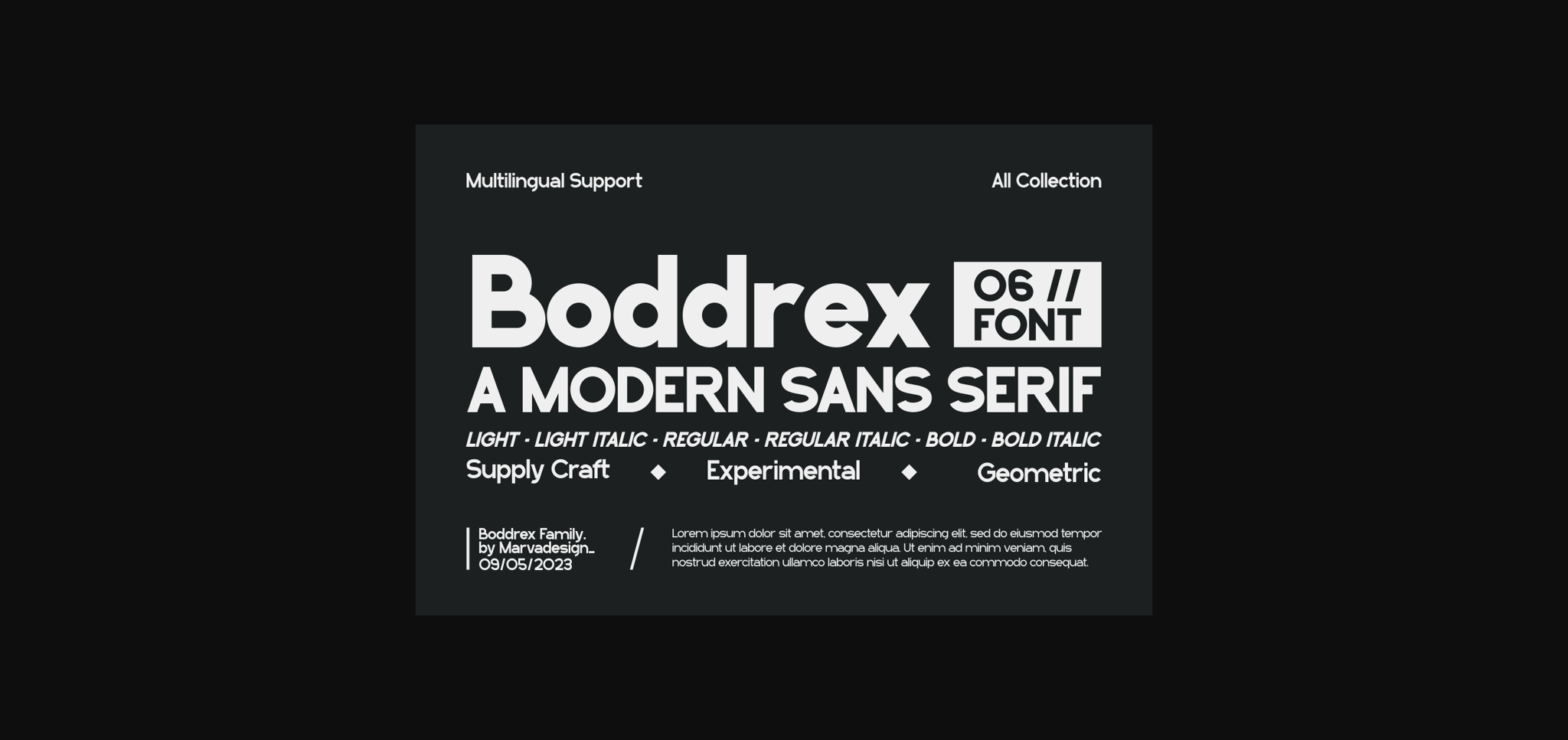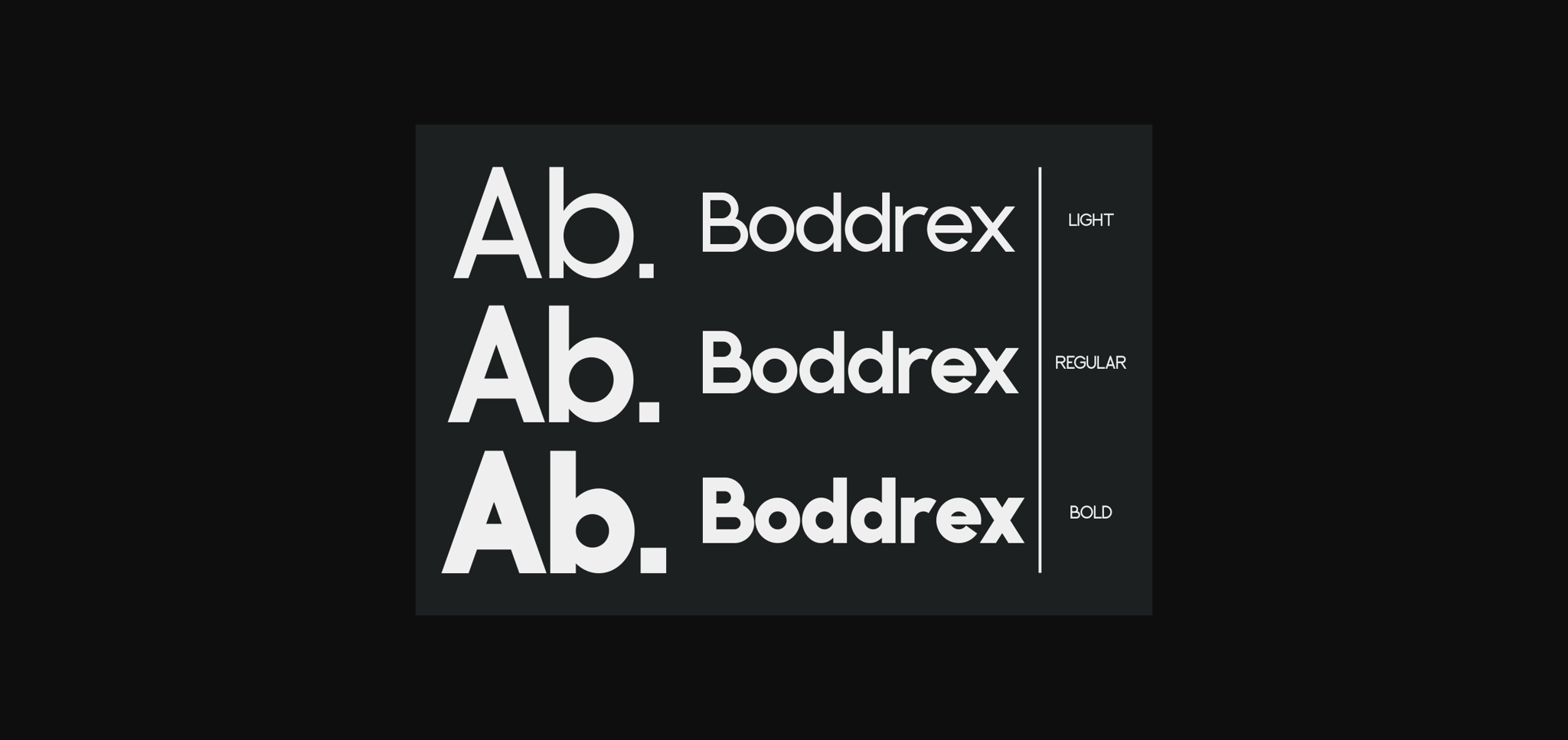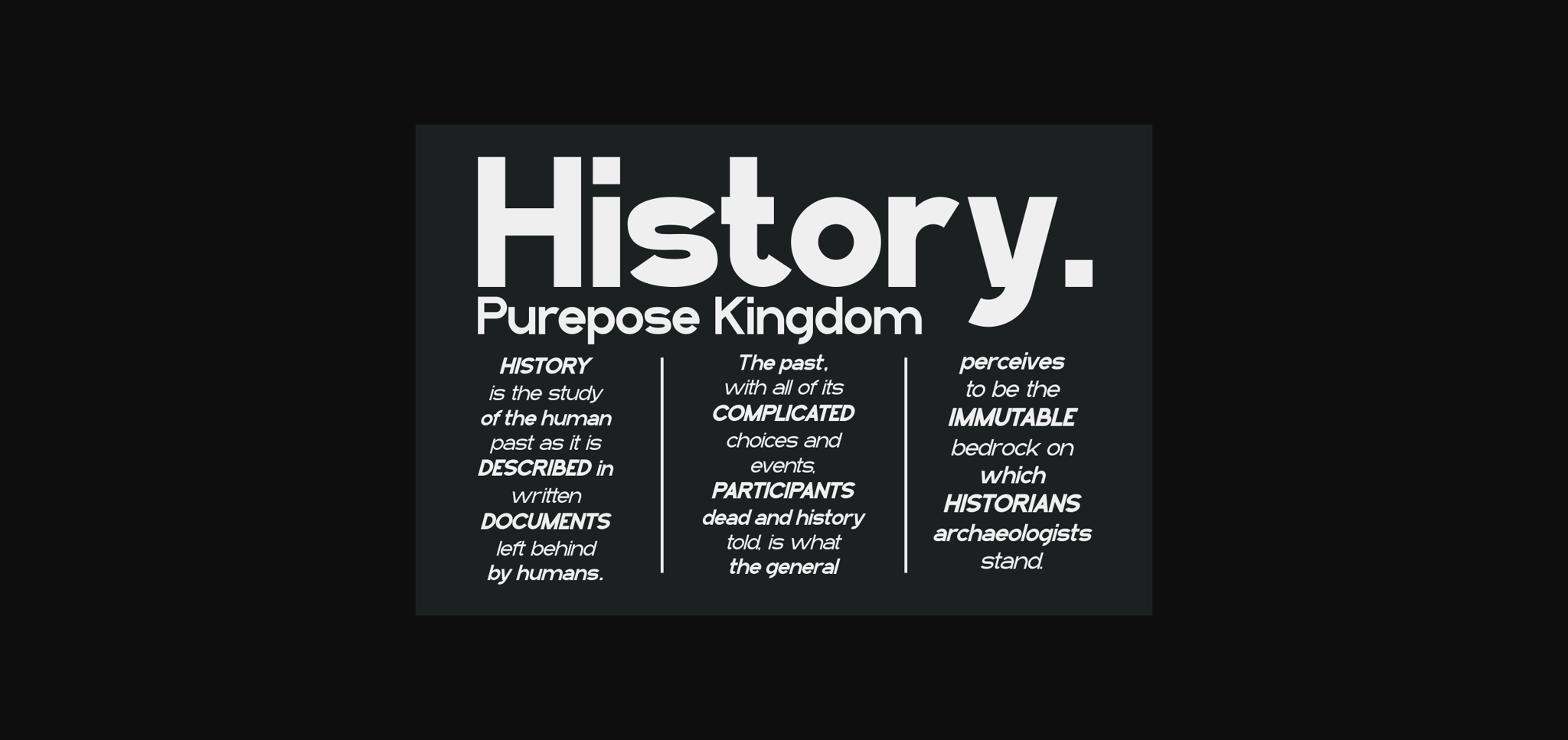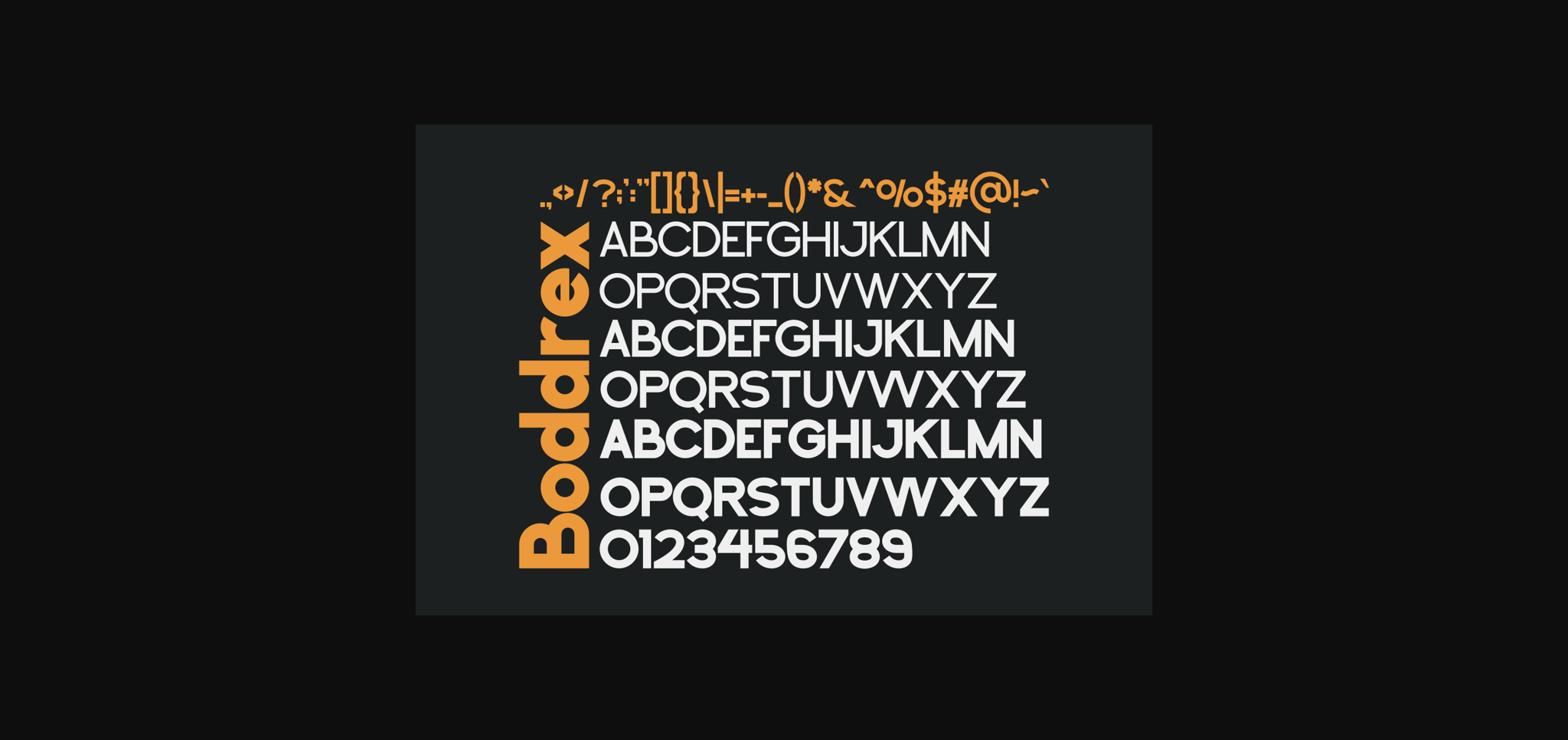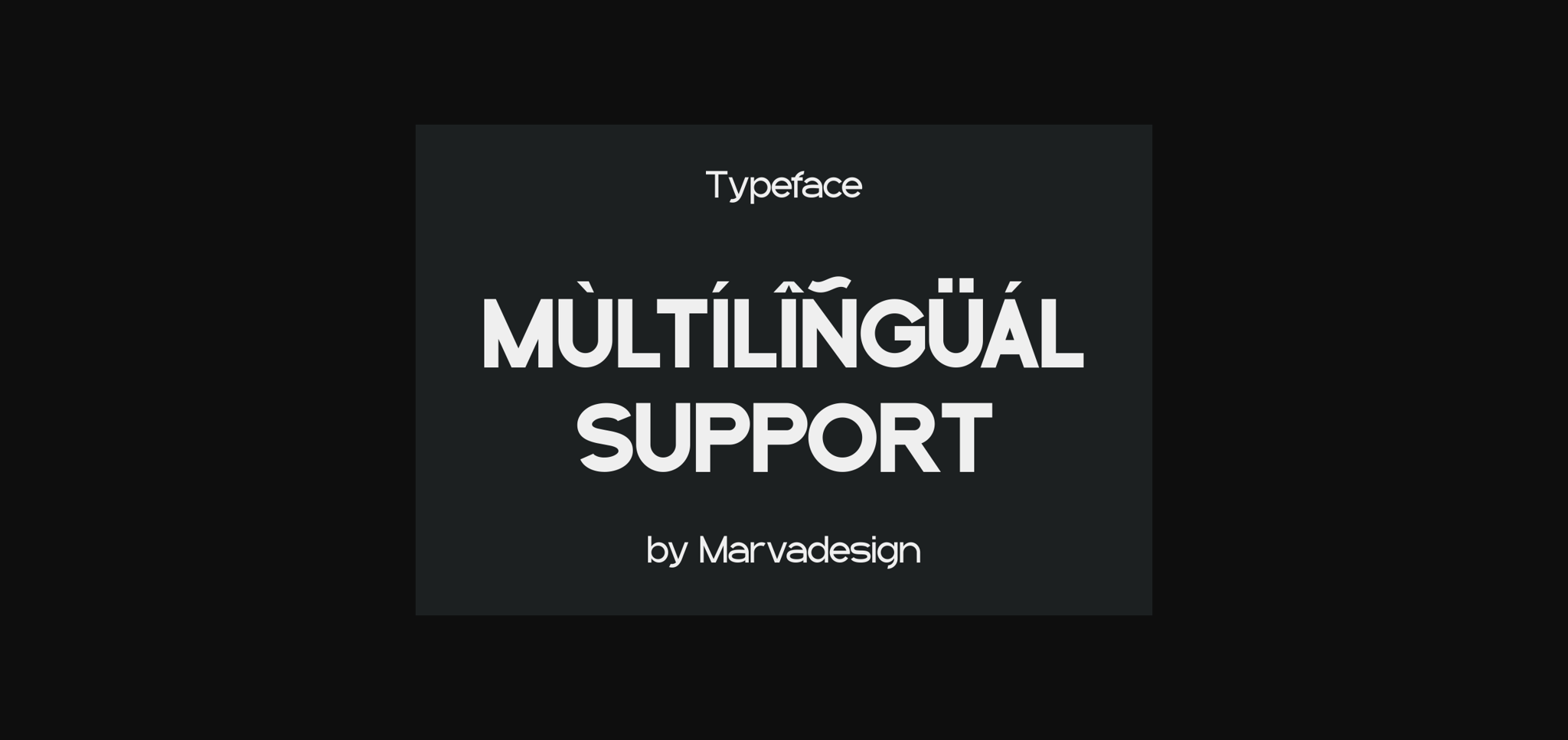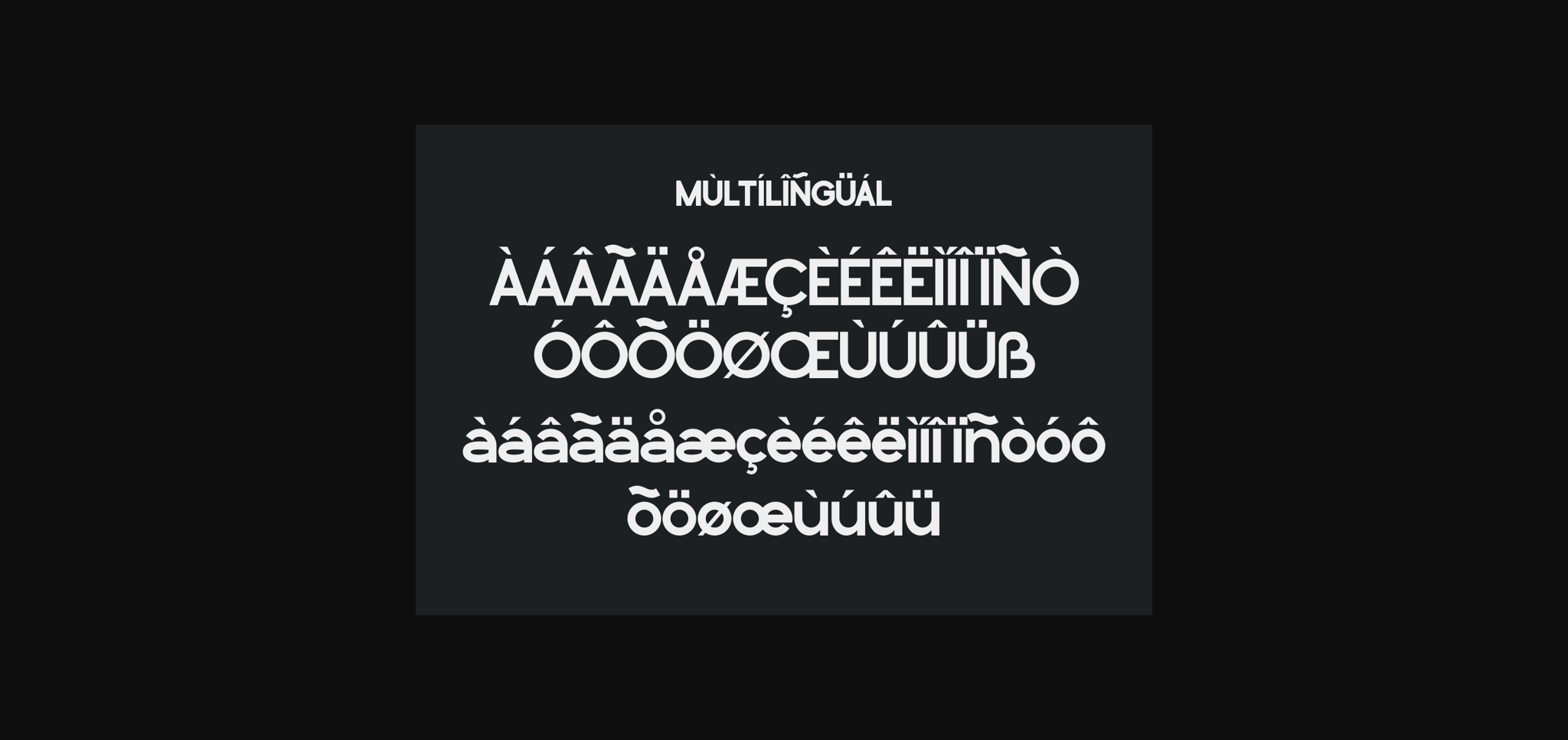
About Boddrex Font
Boddrex is a sleek and modern sans-serif font, bringing a clean and contemporary vibe to your projects. With its straightforward design, Boddrex is perfect for creating a polished and professional look in various applications. Whether you’re working on a website, presentation, or any design project, this font’s modern simplicity adds a touch of sophistication. Upgrade your typographic style with Boddrex for a fresh and clean aesthetic that effortlessly fits into the modern design landscape.